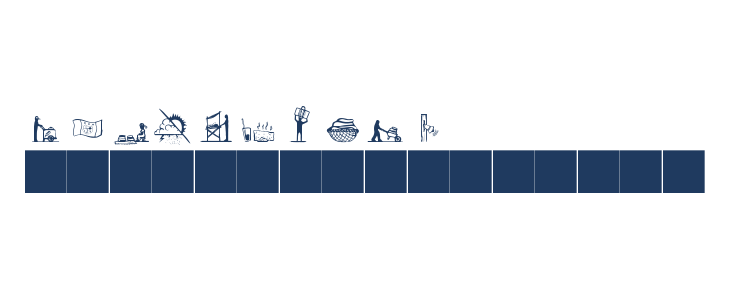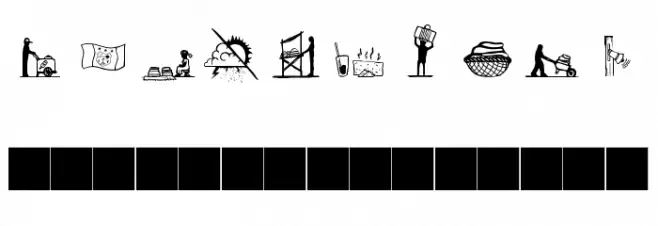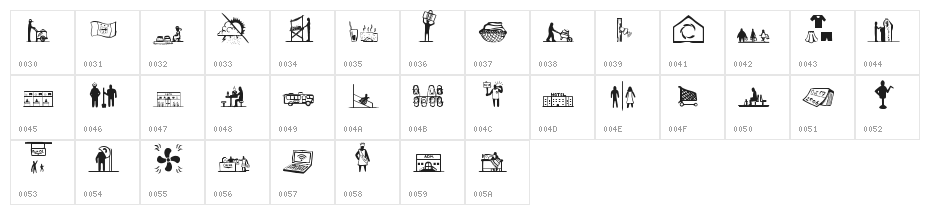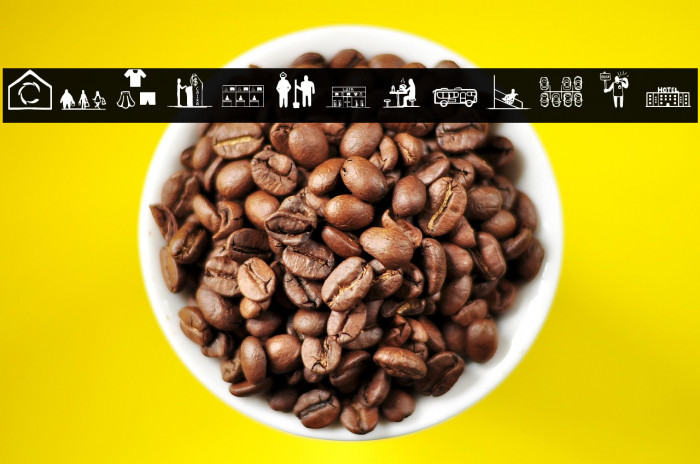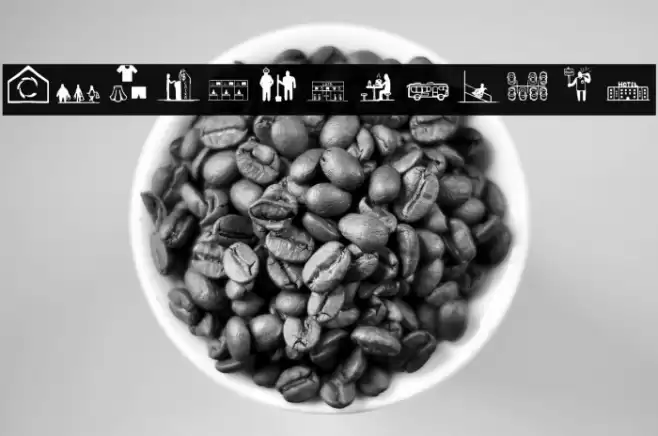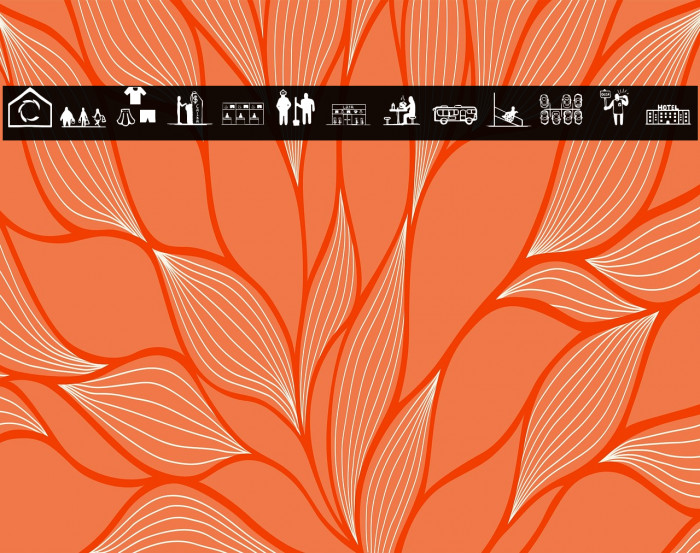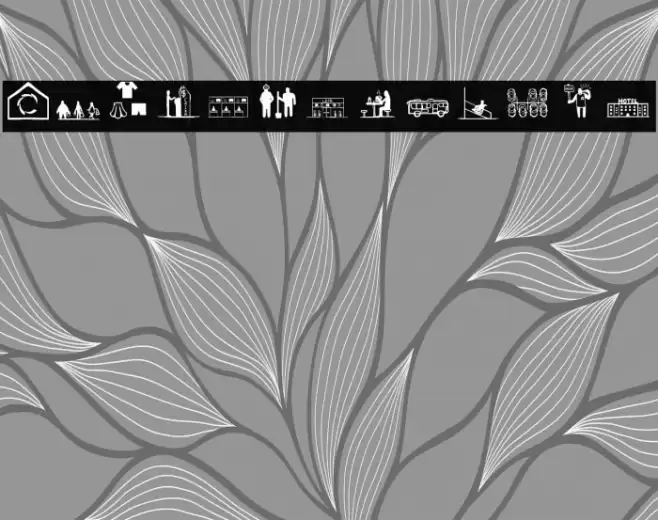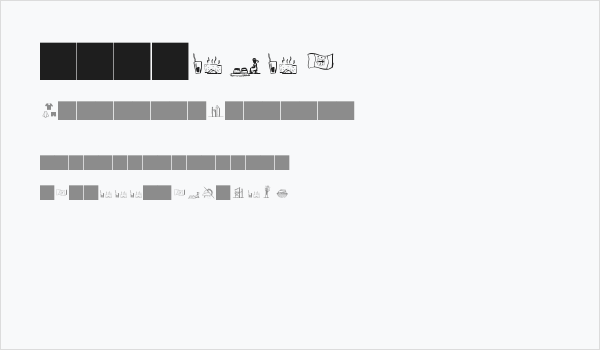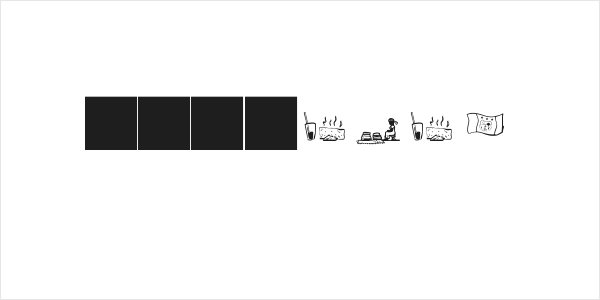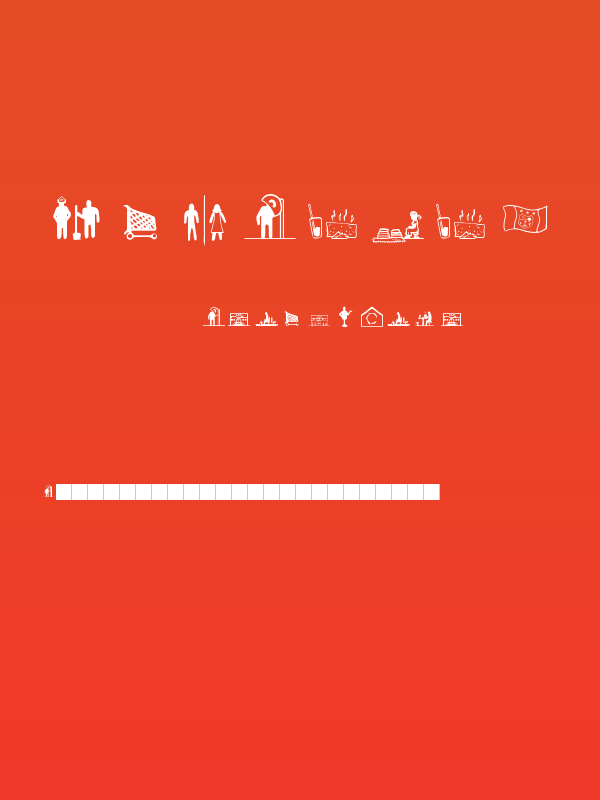
font5251 Font
font5251 Description
A pictogram-based dingbat font featuring various icons related to community, daily life, and social activities, illustrated in a simple, hand-drawn style with clear outlines and minimal detail.
| Overall Style | Decorative, Informative, Hand-drawn |
| Use Case | Icons, Infographics, Visual aids |
| Proposed Projects | Infographics, educational materials, signage, presentations, awareness campaigns. |